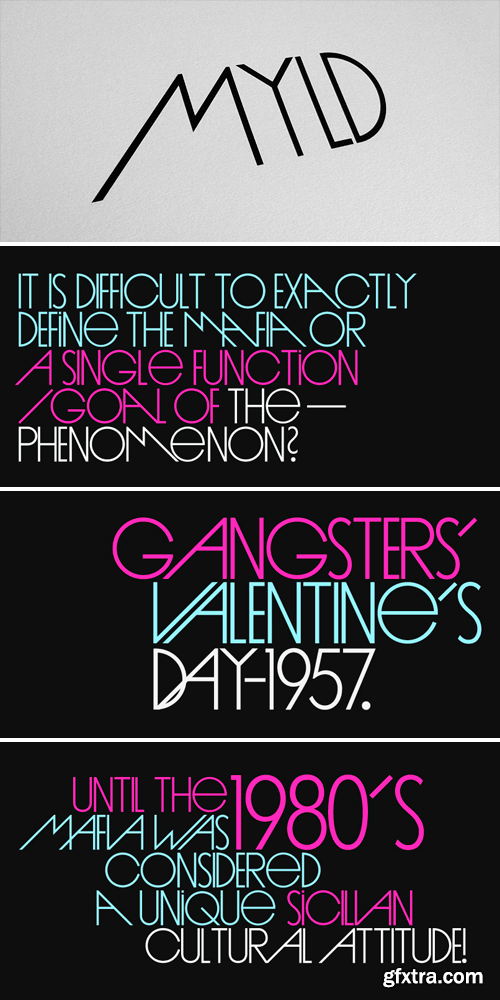
Myld - With Sharp Accented Characters
- Myld is a fully developed typeface from the Subtype foundry. With sharp accented characters and a full range of European characters, it's a strong contender for any stylised sans-serif typeface. Language Support: Albanian, Danish, Dutch, English, French, German, Italian, Malagasy, Norwegian, Portuguese, Romansh, Spanish, Swedish.